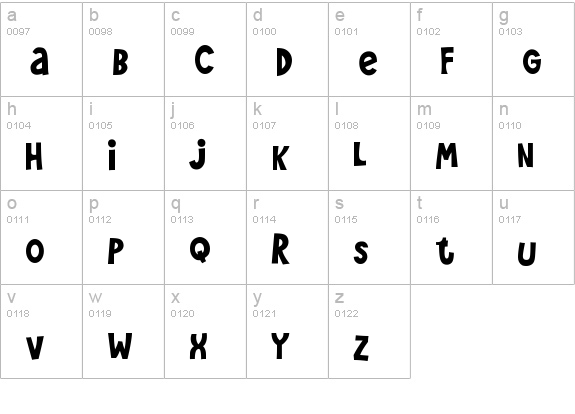
Wee Bairn Font Details
Introducing Wee Bairn font, a charming and whimsical typeface that is sure to add a touch of playfulness to any design project. This delightful font exudes a sense of childlike wonder and innocence, making it perfect for children's book illustrations, nursery decor, or any design that calls for a touch of youthful nostalgia. Wee Bairn font features beautifully hand-drawn letters with a gentle, rounded appearance that captures the essence of childhood. Each character is carefully crafted with attention to detail, resulting in a font that is both visually appealing and easy to read. Its unique and quirky style makes it stand out from the crowd, adding a touch of personality to any design. One of the best things about Wee Bairn font is that it is absolutely free! Yes, you read that right. This delightful typeface is freely available to download at FontsMarket.com. Now you can add a touch of whimsy to your design projects without breaking the bank. Whether you're designing a birthday invitation for a child's party, creating a logo for a children's clothing brand, or working on a school project, Wee Bairn font is the perfect choice. Its versatility allows it to be used in a variety of design applications, from print to digital, ensuring that your creations will always stand out. So why wait? Let your creativity soar and bring a touch of childlike wonder to your designs with Wee Bairn font. Don't miss out on this amazing opportunity to download this charming typeface for free at FontsMarket.com. Get ready to captivate your audience with the enchanting charm of Wee Bairn font.